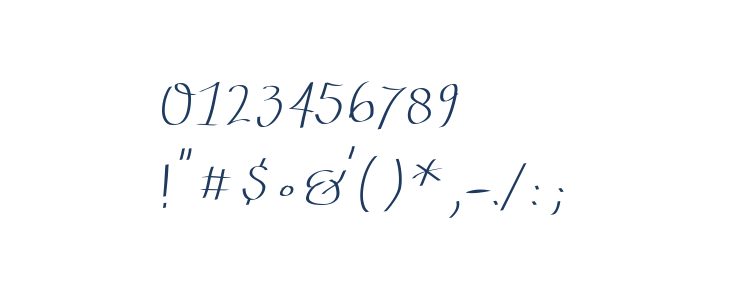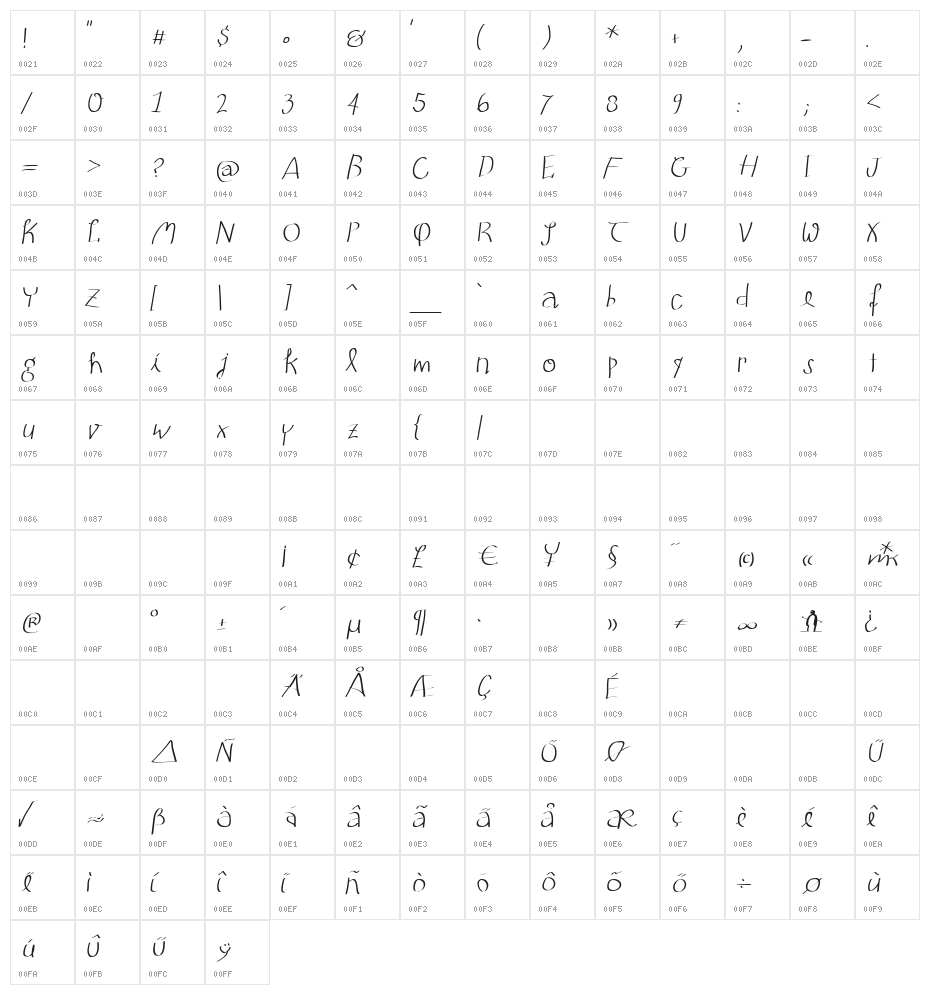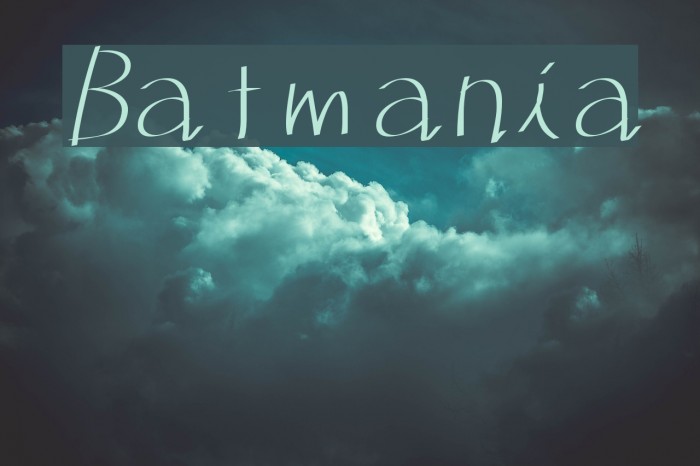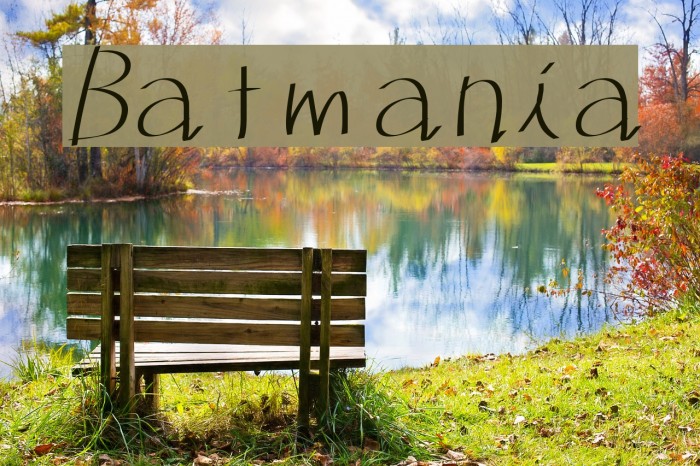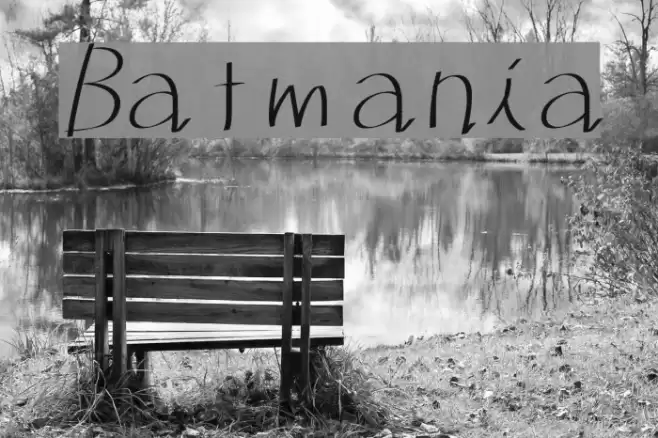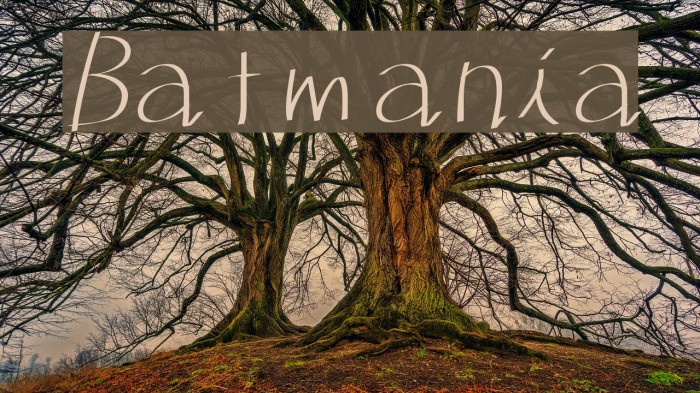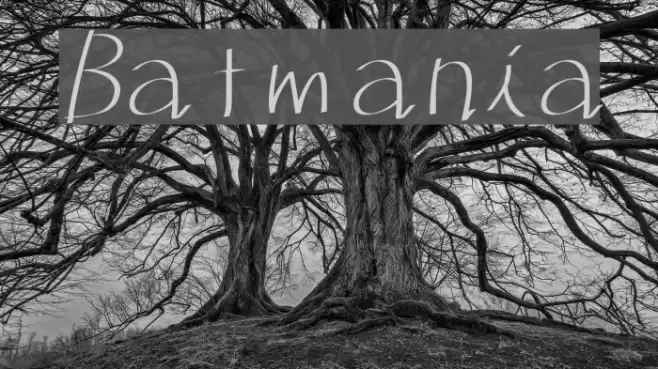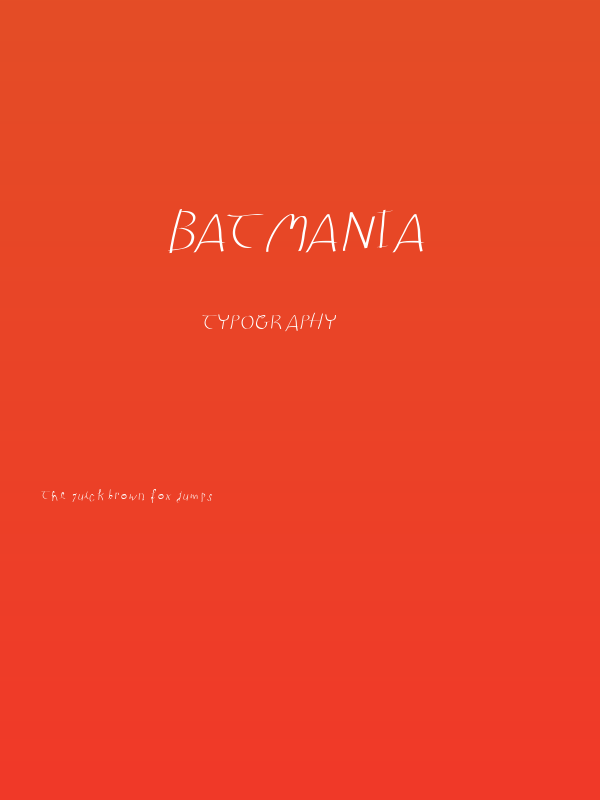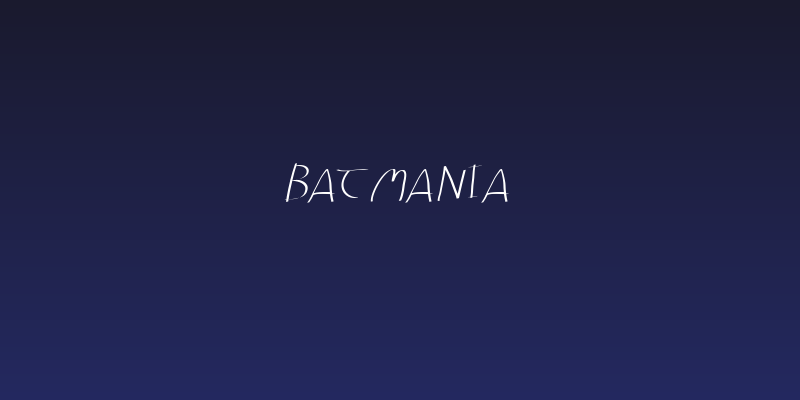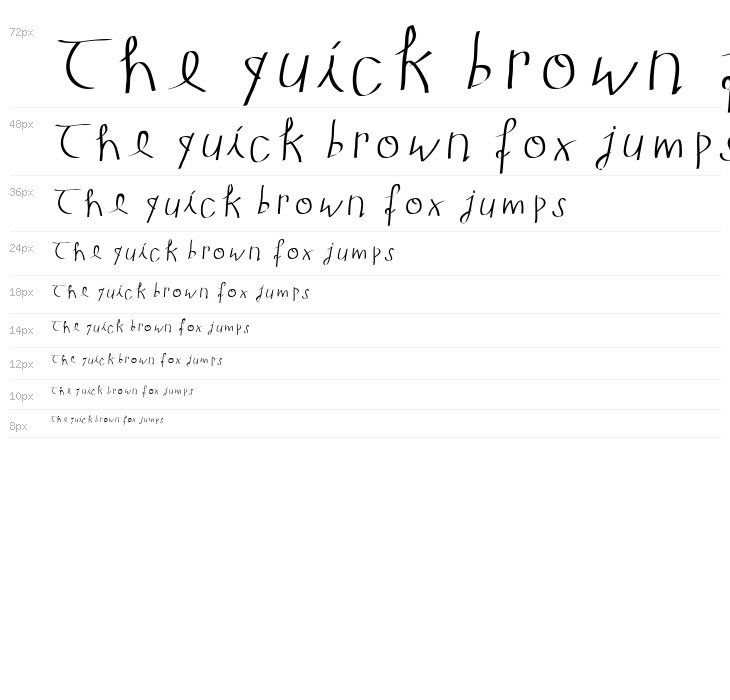
Batmania Font
Batmania Description
This font exhibits a playful and whimsical style, characterized by its irregular, hand-drawn appearance. The letters have a dynamic, flowing quality, with varying stroke widths that give it a lively and energetic feel. The uppercase letters are tall and slightly narrow, while the lowercase letters maintain a consistent height with unique, quirky shapes. The numerals are distinct and maintain the same playful aesthetic, ensuring readability. Special characters are creatively designed, adding to the font's overall charm. This font is ideal for projects that require a touch of personality and creativity.
| Proposed Projects | Great for children's books, creative branding, playful invitations, and artistic posters. |